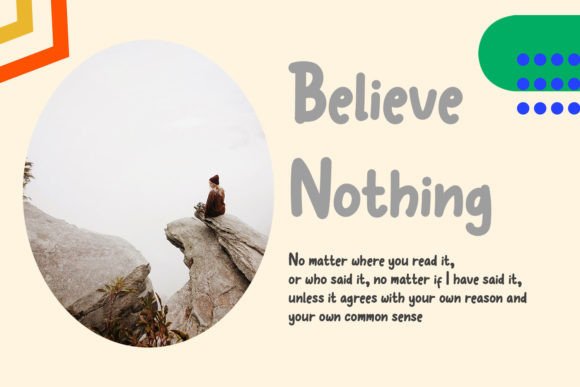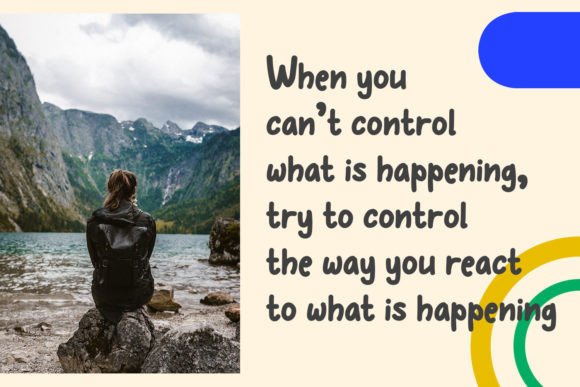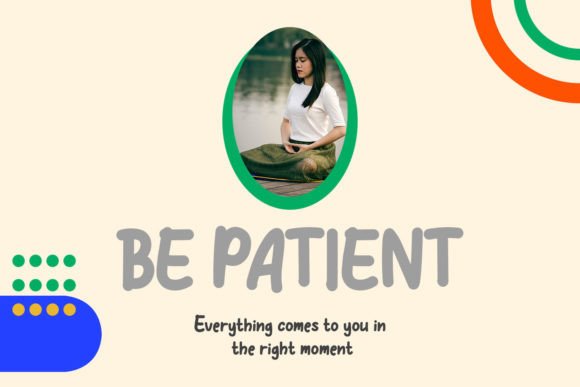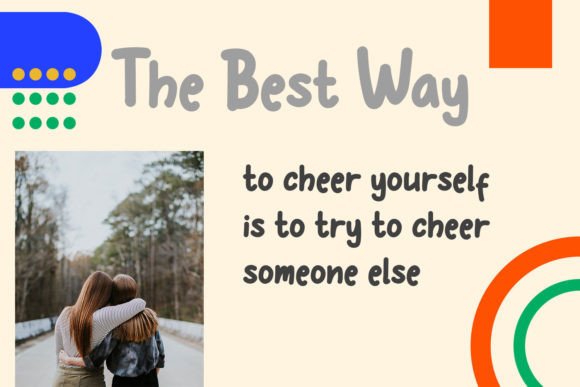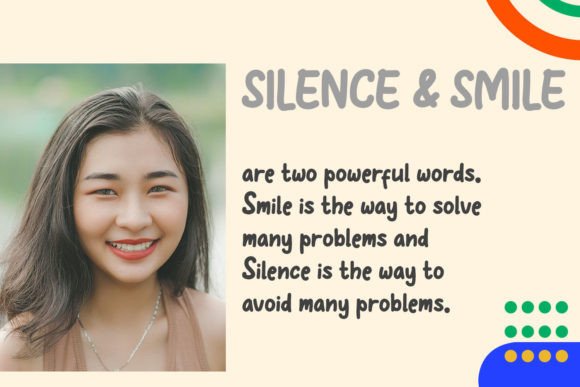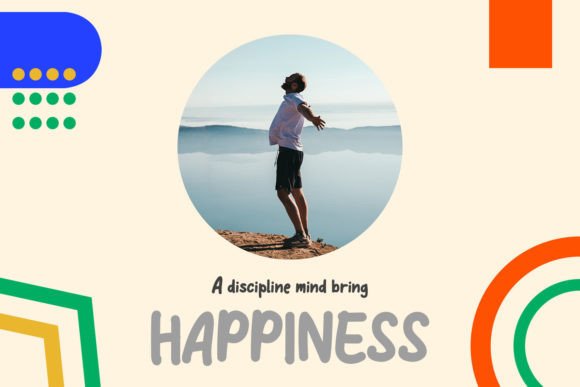
Introduction to Pinatubo Font
Have you ever stumbled upon the perfect font for your latest creative project and felt like you’ve hit the jackpot? For designers, finding that elusive font can be a game-changer, elevating a project from good to great. For me, that font was Pinatubo Font – a relaxed and playful display font that adds a touch of whimsy to any design.
Whether you’re working on a Cricut project, creating custom stickers, or designing a brand new logo, Pinatubo Font is the perfect addition to take your design to the next level. Its high-quality design makes it a valuable resource for any creative project, and the best part? It’s available for free download, complete with a transparent background for seamless integration into your designs.
With its unique charm and versatility, Pinatubo Font is sure to become a go-to design resource for any project. In this article, we’ll dive deeper into the world of Pinatubo Font and explore its many uses, from branding and logos to SVG designs and more.
Key Features of Pinatubo Font
- High-quality design resource with a unique, modern style, perfect for creative projects.
- Comes with a transparent background, allowing for seamless integration with any design.
Honest Review: Pinatubo Font
I recently had the opportunity to work with the Pinatubo Font and I must say it’s been a game-changer for my design projects. This high-quality font is a fantastic addition to any design resource.
- ✨ The Pinatubo Font features a beautiful, minimalist design that is perfect for creative projects.
- ✨ It comes with a transparent background, making it easy to work with in various design scenarios.
- ⚠️ Some users may find the font’s minimalist design too plain for certain design applications.
Overall, I’m really impressed with the Pinatubo Font. It’s a great addition to any design resource and I can see it being a go-to font for many designers. With its high-quality design and transparent background, it’s perfect for a wide range of creative projects. Whether you’re a professional designer or just starting out, the Pinatubo Font is definitely worth checking out.
The Pinatubo Font is a high-quality design resource that offers a unique and creative touch to any project. With its transparent background, this font is perfect for designers looking to add a subtle yet effective element to their work.
Common Use Cases for Pinatubo Font
The Pinatubo Font